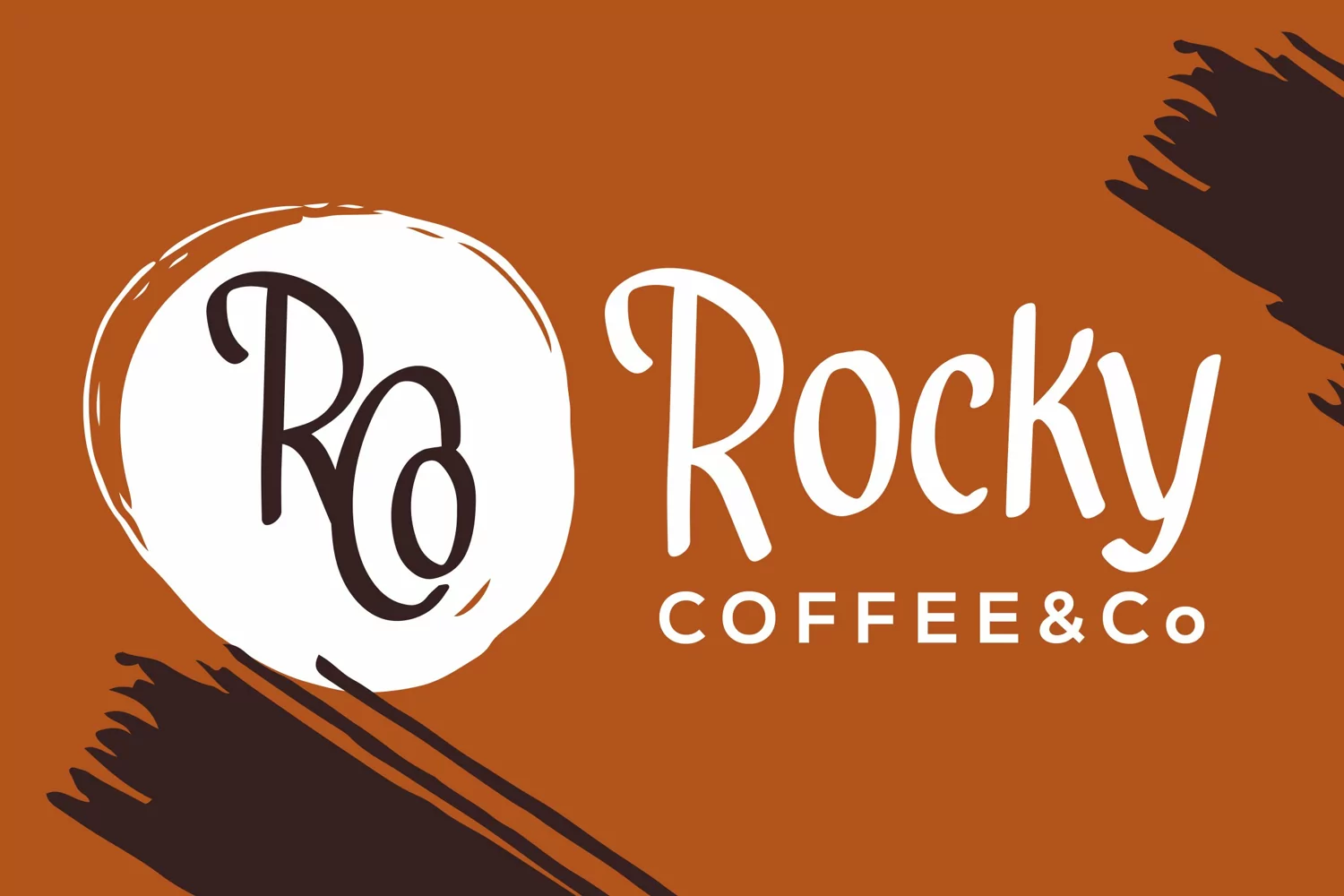
Coffee bar - Sweet & Simple Font that contain lowercase, uppercase, symbol, and also support multi language. There’s a lot ligatures in this font. This Font also comes with ligatures, alternates and many more. this font suitable for fashion, branding, catalog and other design what you want.